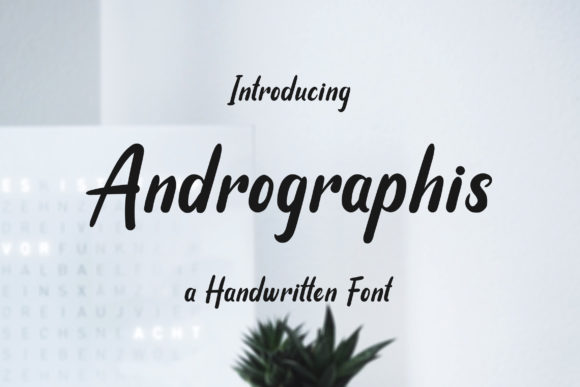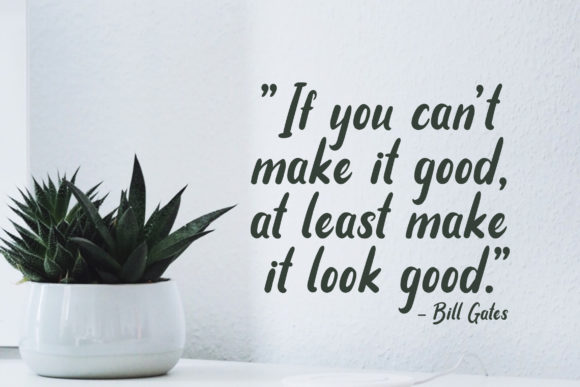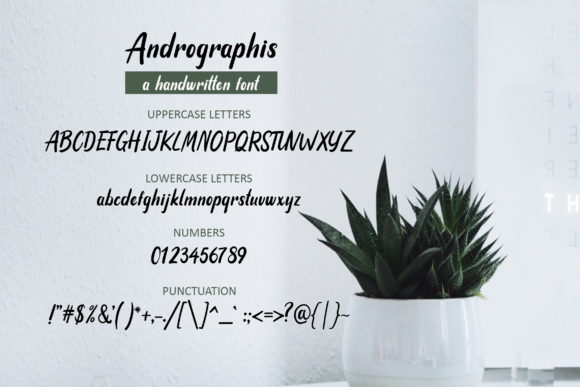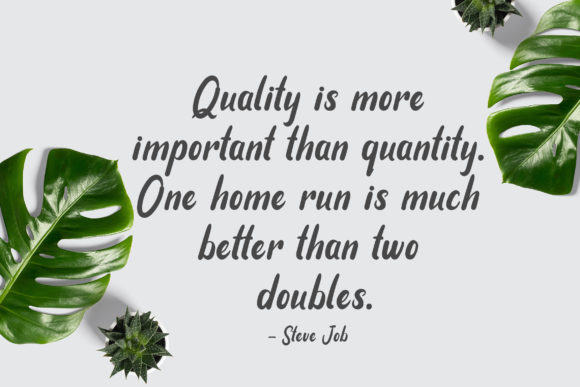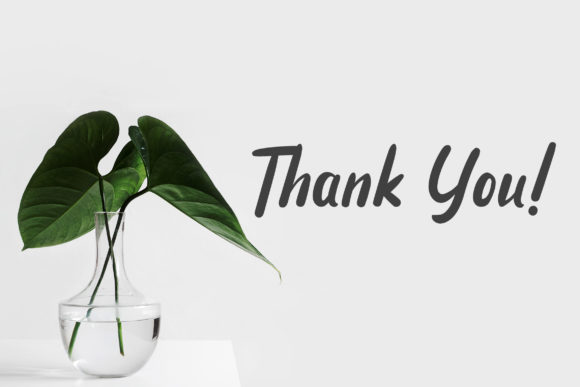
HomeScript FontsAndrographis Font Script Fonts Andrographis Font FacebookXPinterestWhatsApp Andrographis Font Poster 2 Andrographis Font Poster 3 Andrographis Font Poster 4 Andrographis Font Poster 5 About Andrographis Font Andrographis is a sweet and charming script that’s full of life. Get inspired by its relaxed vibe! DOWNLOAD NOW People also explored Sarah Adeline Font Olive Remain Font Josephani Ego Font Butter Beer Style Font Niesha Font Monogram Love Frame Font Jullyana Font Youth Font 352 0 TagsAndrographis Font Previous articleGood Morning FontNext articleBe Happy Font LEAVE A REPLY Cancel reply Comment: Please enter your comment! Name:* Please enter your name here Email:* You have entered an incorrect email address! Please enter your email address here Website: Save my name, email, and website in this browser for the next time I comment. Personal Use Free Bukhari Script Personal Use Free Read more about this font Fontmageddon Personal Use Free Read more about this font Equestrain Personal Use Free Read more about this font Mandarins Personal Use Free Read more about this font BLOG Top 7 Google Fonts Alternatives for Faster and Privacy-Friendly Web Design (2025) Top 7 Google Fonts Alternatives for Faster and Privacy-Friendly Web Design (2025) When it comes to web typography, Google Fonts has long been the go-to... Transform Your Website: Elevate Your Typography with 7 Best Web Font Generators Where to Buy American Fonts Online in 2024 To increase your work productivity, choose the most readable fonts.